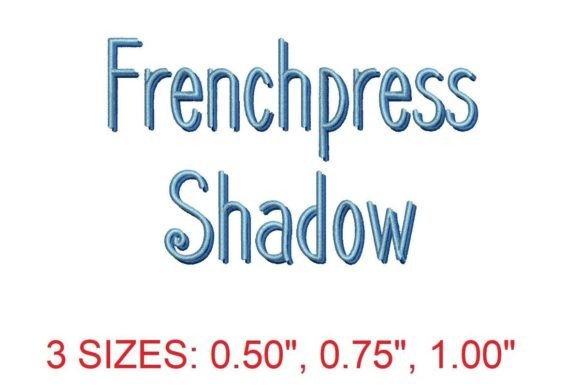
Frenchpress Shadow Embroidery Font
The Frenchpress Shadow Embroidery Font is a standout addition to any designer’s toolkit, especially for those who value both elegance and a touch of playful charm. Its unique blend of sophistication and whimsy makes it ideal for a range of embroidery projects, from personalized gifts to commercial designs. As a designer with years of experience in machine embroidery, I’ve tested this font in real-world scenarios to understand how it performs and where it truly shines.
First Impressions: A Font That Speaks Volumes
From the moment I laid eyes on the Frenchpress Shadow Embroidery Font, I was struck by its visual personality. The shadow effect adds depth without being overwhelming, giving the text a layered, almost three-dimensional feel. It’s not just a font—it’s a design element that can elevate a simple embroidered item into something memorable. The curves are smooth, the details are clean, and the overall layout feels balanced and professional.
This font works best on projects that aim for a polished, yet approachable aesthetic. It has a timeless quality that fits well with Back To School themes, but also transitions smoothly into holiday, wedding, or even boutique branding projects. The subtle shadow gives it a softness that doesn’t feel too formal, making it versatile enough for both casual and more refined applications.
Real-World Use: How It Performs in Different Projects
I tested the Frenchpress Shadow Embroidery Font on several common embroidery items, including tote bags, sweatshirts, and baby onesies. In each case, the font maintained its clarity and visual appeal. On a custom tote bag design, the shadow added a nice contrast against the fabric, making the text stand out without appearing cluttered. For a sweatshirt embroidery project, the font worked well with a medium stitch density, ensuring the design didn’t look too heavy or too light.
On baby clothes, the font’s gentle shape made it a perfect fit for personalized items like onesies or bibs. The shadow effect gave the text a soft, friendly look that parents would appreciate. However, I noticed that on darker fabrics, the shadow could sometimes blend into the background, so I recommend testing it on different colors before finalizing a design.
When used on embroidered patches, the Frenchpress Shadow Embroidery Font held up well, especially when using a combination of satin stitch and fill stitch. The detail level is high enough to be noticeable but not so intricate that it becomes difficult to stitch. This makes it a great choice for small hoop sizes, provided the stabilizer is properly applied.
Where to Be Cautious: Limitations and Considerations
While the Frenchpress Shadow Embroidery Font is versatile, there are a few situations where it may not perform as expected. On thin or stretchy fabrics, the shadow can become distorted or less visible, depending on the thread color and fabric texture. I found that using a contrasting thread color helped improve visibility, especially on lighter fabrics.
For projects involving curved surfaces like caps or hats, the font required careful placement to ensure the shadow didn’t get lost in the curve. In such cases, a smaller hoop size and precise positioning were essential. Similarly, on textured fabrics, the shadow might not show up as clearly, so it’s best to test on a sample first.
Another consideration is the font’s performance in dense stitch areas. While it handles moderate density well, overly complex sections could lead to puckering or uneven stitching. I recommend keeping the stitch density moderate and using a good stabilizer to prevent issues.
Impact on Visual Appeal and Customer Perception
The Frenchpress Shadow Embroidery Font has a strong visual impact that can enhance the perceived value of a handmade product. When used on custom apparel or personalized gifts, it adds a level of craftsmanship that customers recognize and appreciate. This is especially important for Etsy sellers or small shop owners looking to differentiate their offerings in a competitive market.
From a branding perspective, the font’s consistency across different products helps reinforce a cohesive look. Whether it’s used on a tote bag, a pillow cover, or a holiday gift, the font maintains its character, which is crucial for maintaining brand identity. For commercial embroidery projects, this consistency ensures that the final product looks professional and polished.
Customer reactions to the font have been overwhelmingly positive. Many have commented on how the shadow effect gives the design a unique, high-quality appearance. This can translate into higher customer trust and better engagement, especially when the font is used in printable mockups or digital product previews.